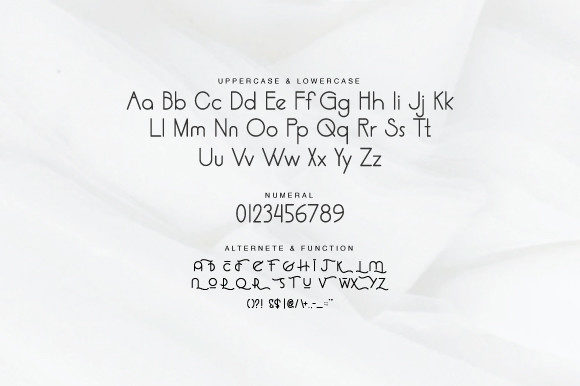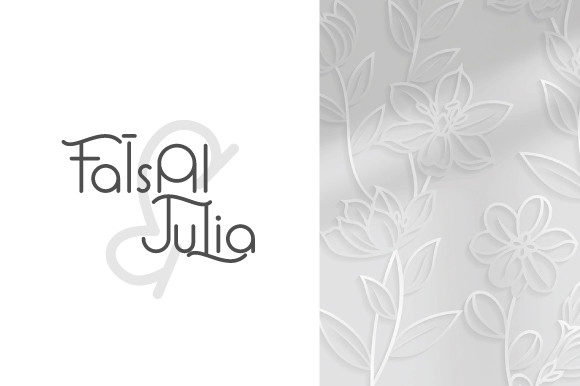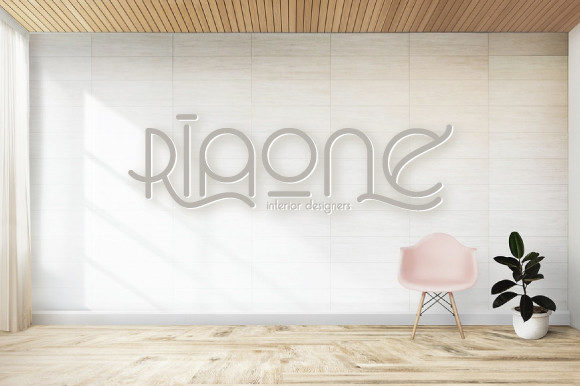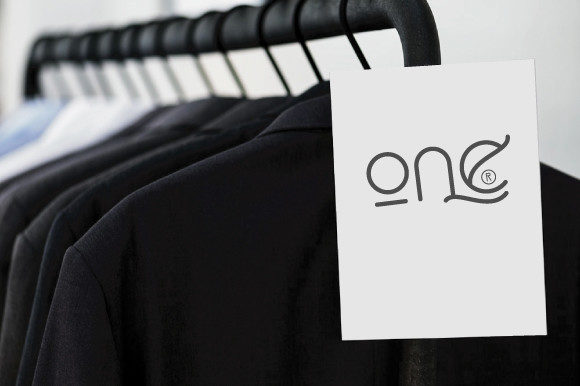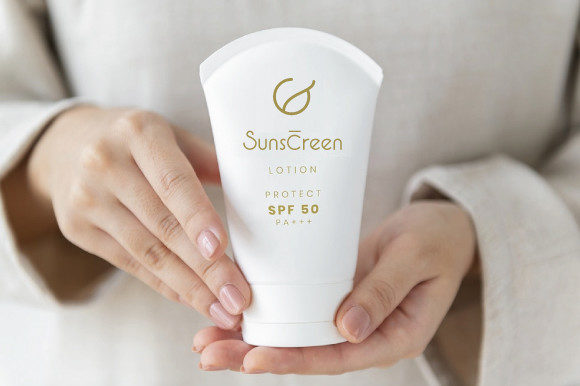
Introduction to Fabes Font
Fabes is a luxurious and delicate sans serif font.
It is PUA encoded which means you can access all of the amazing glyphs and ligatures with ease Fall for its ravishing style and use it to create gorgeous designs.
Key Features of Fabes Font